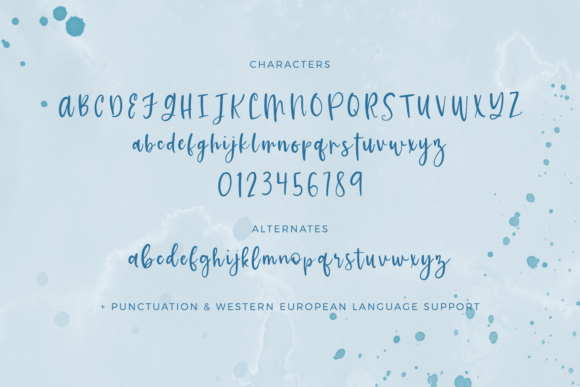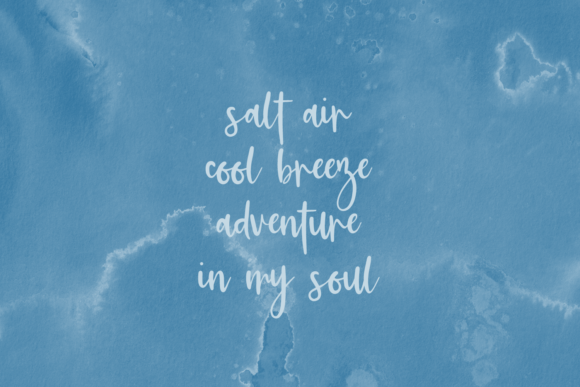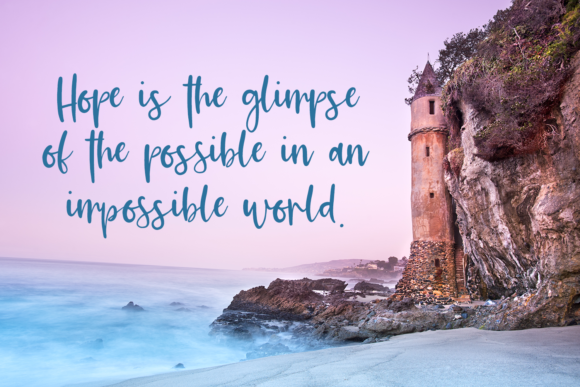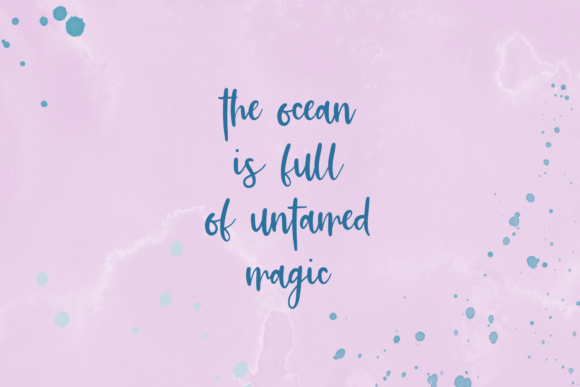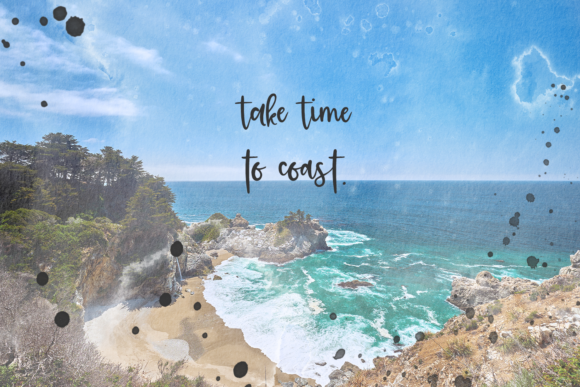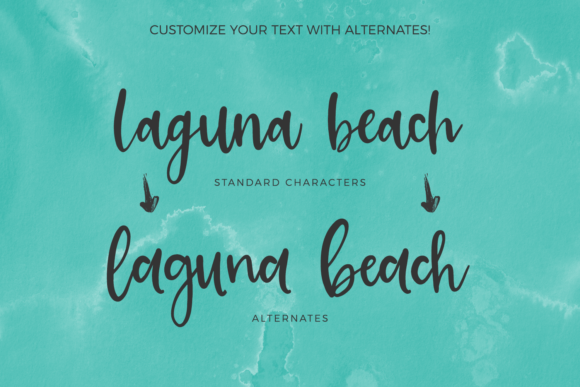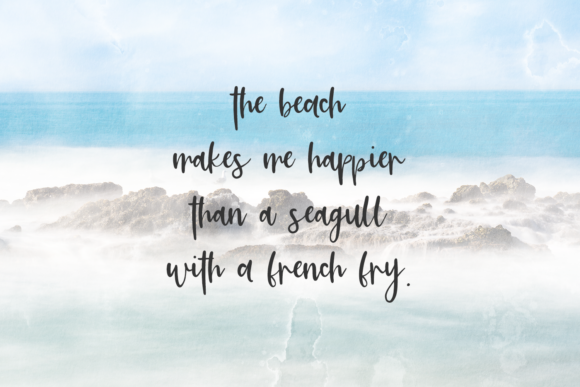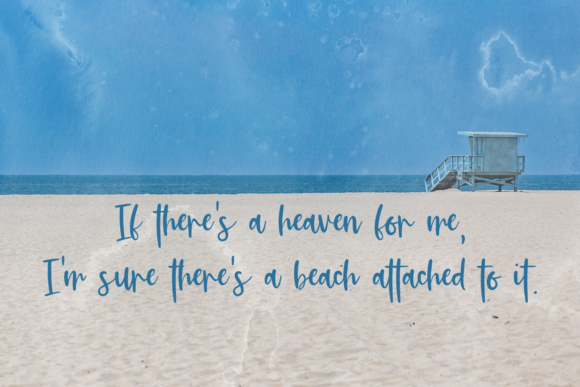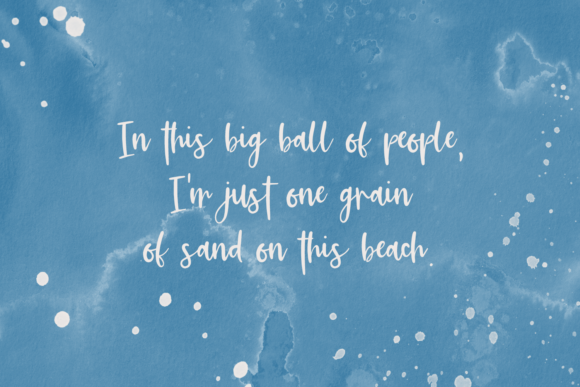
Cali Coast Font
About Cali Coast Font
Cali Coast is a beautiful handwritten font. Use it for any design project that requires a personalized appearance!